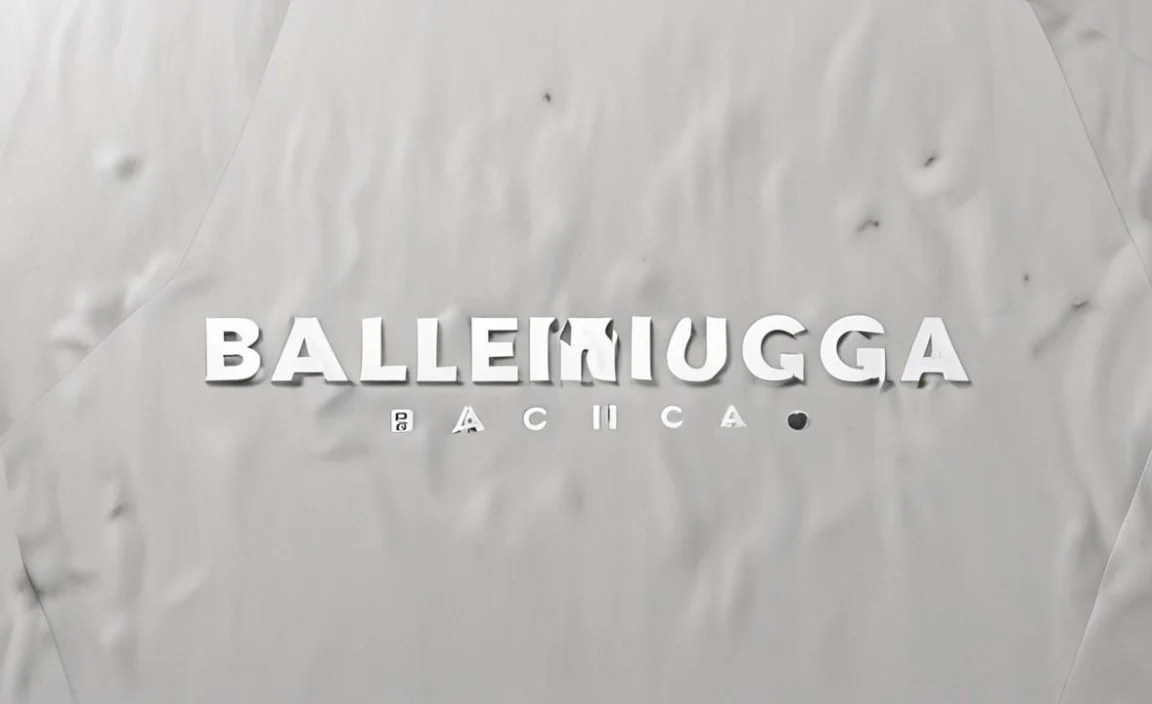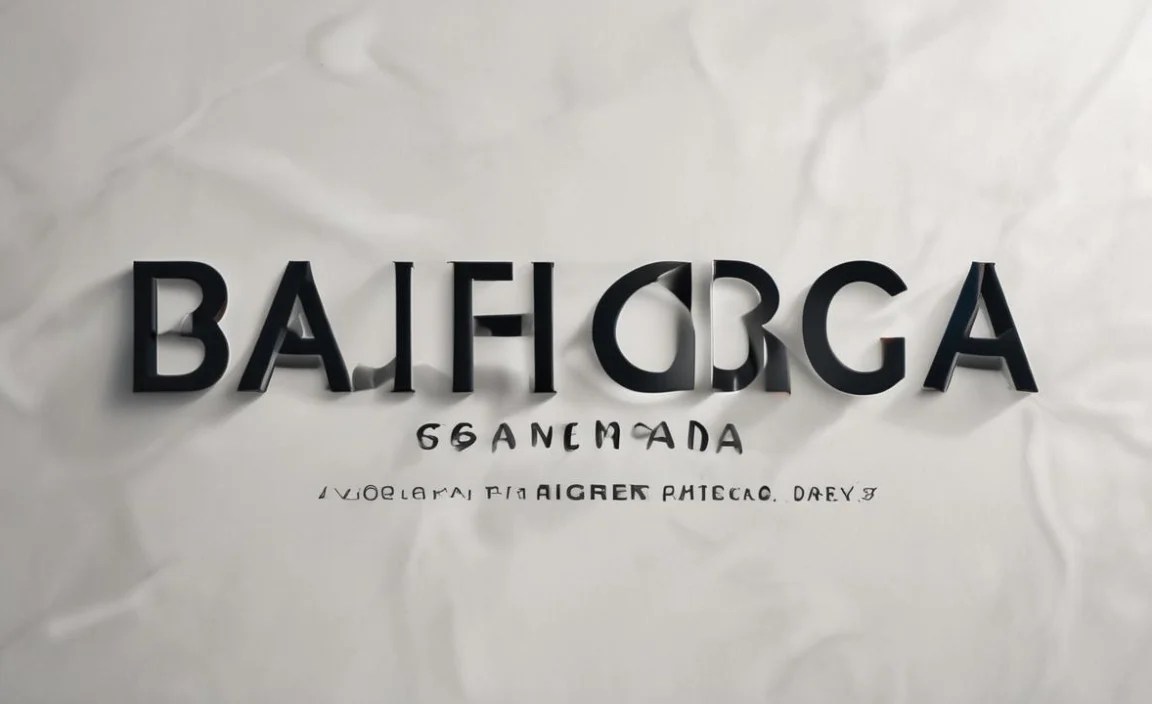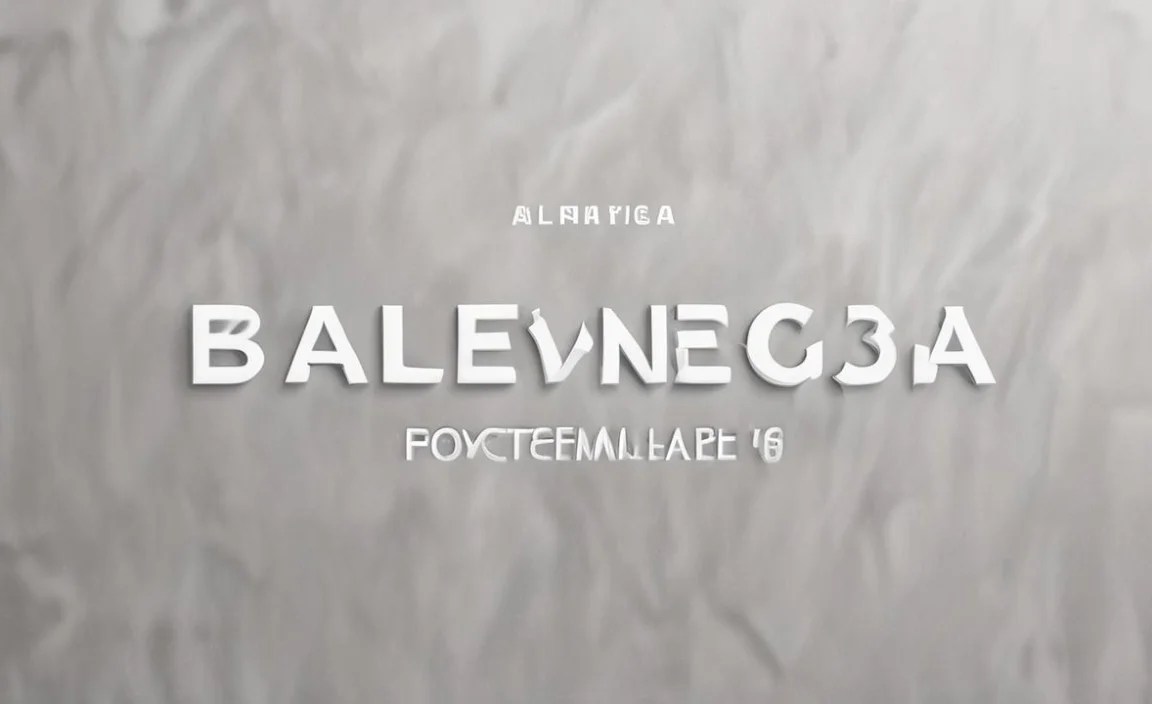
The Balenciaga Font is a bold, modern sans-serif typeface that embodies confidence and sophistication. Inspired by the prestigious fashion brand Balenciaga, this font is crafted to convey luxury and exclusivity.
Its clean, minimalist design ensures excellent legibility and readability, even at smaller sizes. This makes it an ideal choice for both print and digital media, including headlines, titles, and body text.
| Style | Sans Serif |
Where Balenciaga Font Is In Use
Balenciaga Font excels in conveying luxury and sophistication across various design contexts. It enhances the visual appeal of high-end projects. Key applications include:
- Luxury Branding
- Editorial Design
- Website Design
- Advertising Campaigns
- Product Packaging
- User Interfaces
- Book Covers and Interior Text
2. Why Do Designers Choose Balenciaga?
Designers opt for Balenciaga’s elegant design, which perfectly complements luxury brands and high-end editorial work.
3. What Are The Future Trends For Balenciaga Font?
Future trends suggest that Balenciaga will continue to favor luxury branding and high-fashion contexts, reflecting its timeless elegance
4. When Was The Balenciaga Font Created?
The Balenciaga font was developed to embody the sophisticated design ethos of the Balenciaga brand.
5. What Free Font Resembles Balenciaga?
Free alternatives like “Playfair Display” or “Merriweather” offer similar serif characteristics, though they may not fully capture Balenciaga’s unique style.
6. How Many Fonts Are In The Balenciaga Family?
The Balenciaga font family includes various styles that capture the brand’s sophistication and elegance. It is often used for titles and branding purposes.
7. What Are The Different Versions Of Balenciaga?
The Balenciaga font family offers a range of versions, including Regular, Bold, Italic, and Light, which bring the fashion house’s creativity and heritage to life in every letter.